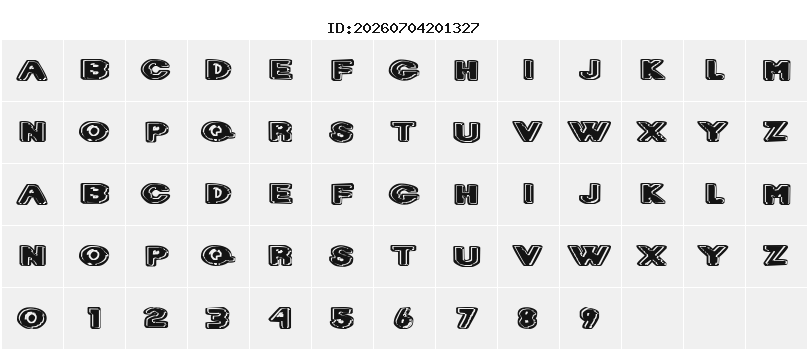
Dr. Creep Preview
• Font Name: Dr. Creep
• Full Font Name: Dr. Creep
About Dr. Creep.ttf
Dr. Creep.ttf is a modern, elegant sans-serif font designed for ultimate readability and visual harmony. Perfect for branding, headlines, web design, and print materials.